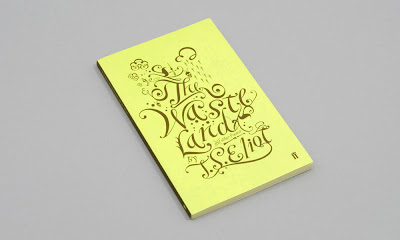
For your Friday viewing pleasure, some beautiful typographic illustrations by artist and illustrator Cody Hoyt. He majored in printmaking at Massachusetts College of Art, and incorporates a lot of traditional print media like intaglio, lithography and silkscreen in his work. The end result is just beautiful. I currently have this one as my desktop wallpaper at home: